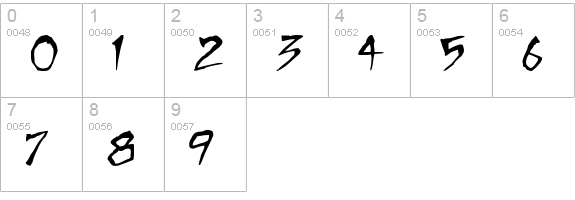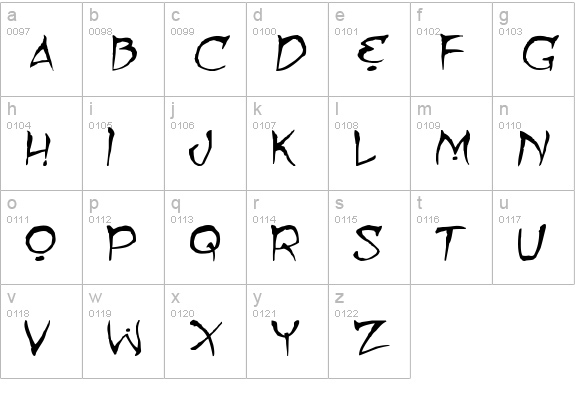
Mummy Loves You Font Details
Mummy Loves You font is a charming and whimsical typeface that exudes warmth and affection. Its playful yet elegant design makes it perfect for a variety of creative projects, from greeting cards to social media graphics. The unique letterforms and quirky details give this font a fun and lively personality that is sure to stand out. Whether you're working on a Halloween-themed design or simply want to add a touch of fun to your work, Mummy Loves You font is the perfect choice. Best of all, Mummy Loves You font is available for free download at FontsMarket.com. This means you can easily add this delightful font to your collection without any cost. Don't miss out on the opportunity to bring some love and whimsy to your designs with Mummy Loves You font. Download it today and let your creativity shine!